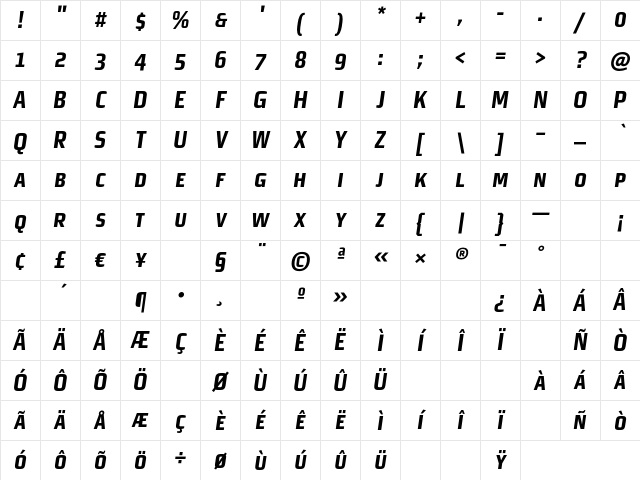
Complete MorganSansCond Bold ItalicExpert glyph index. Displaying only characters natively supported by MorganSansCond Bold ItalicExpert font.
MorganSansCond is a composed and adaptable typeface that performs quietly and consistently across a wide range of design contexts. The slanted form adds forward momentum and visual energy. Its bold stroke weight gives it real presence on the page. Its narrow stance lets it pack a punch even in space-constrained designs.
Pro Tip: Use MorganSansCond for emphasis, pull quotes, and subheadings where its slanted energy can add rhythm to the layout.